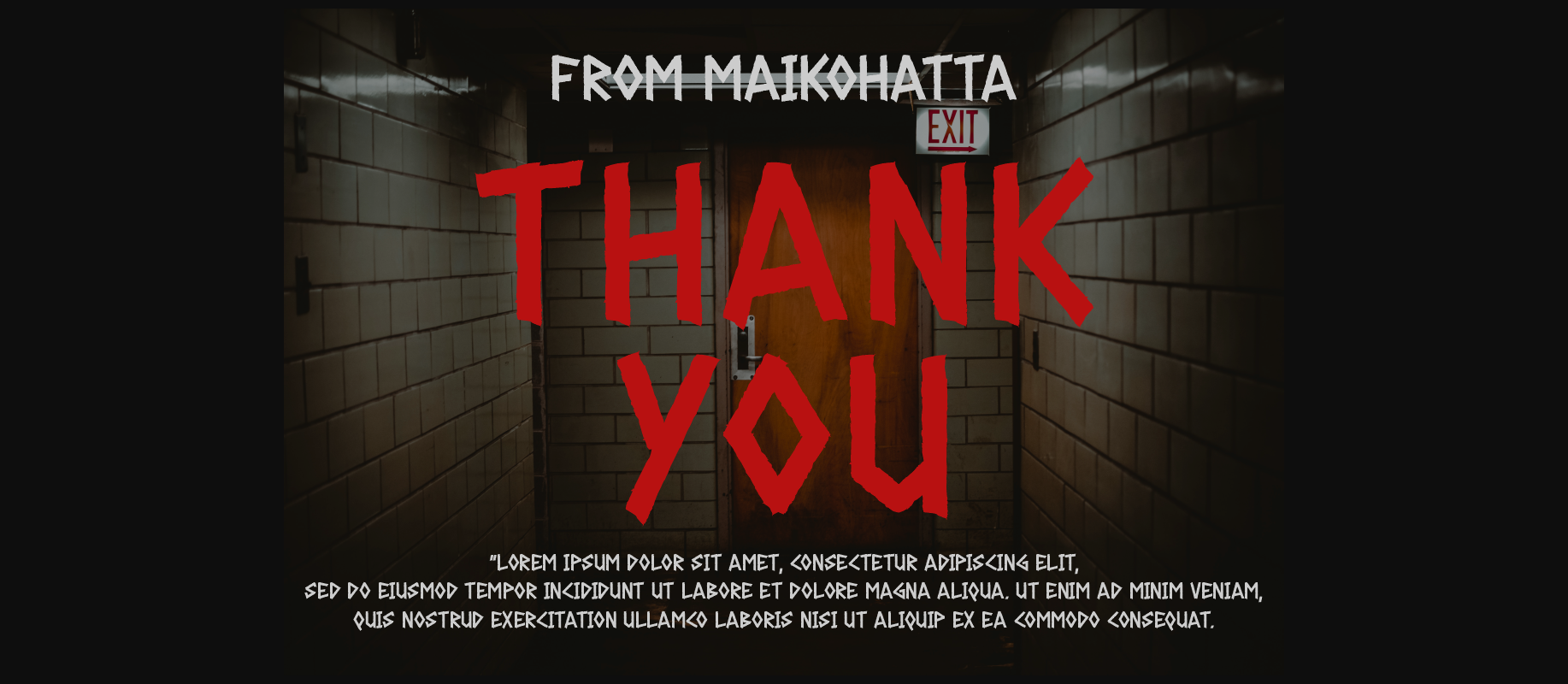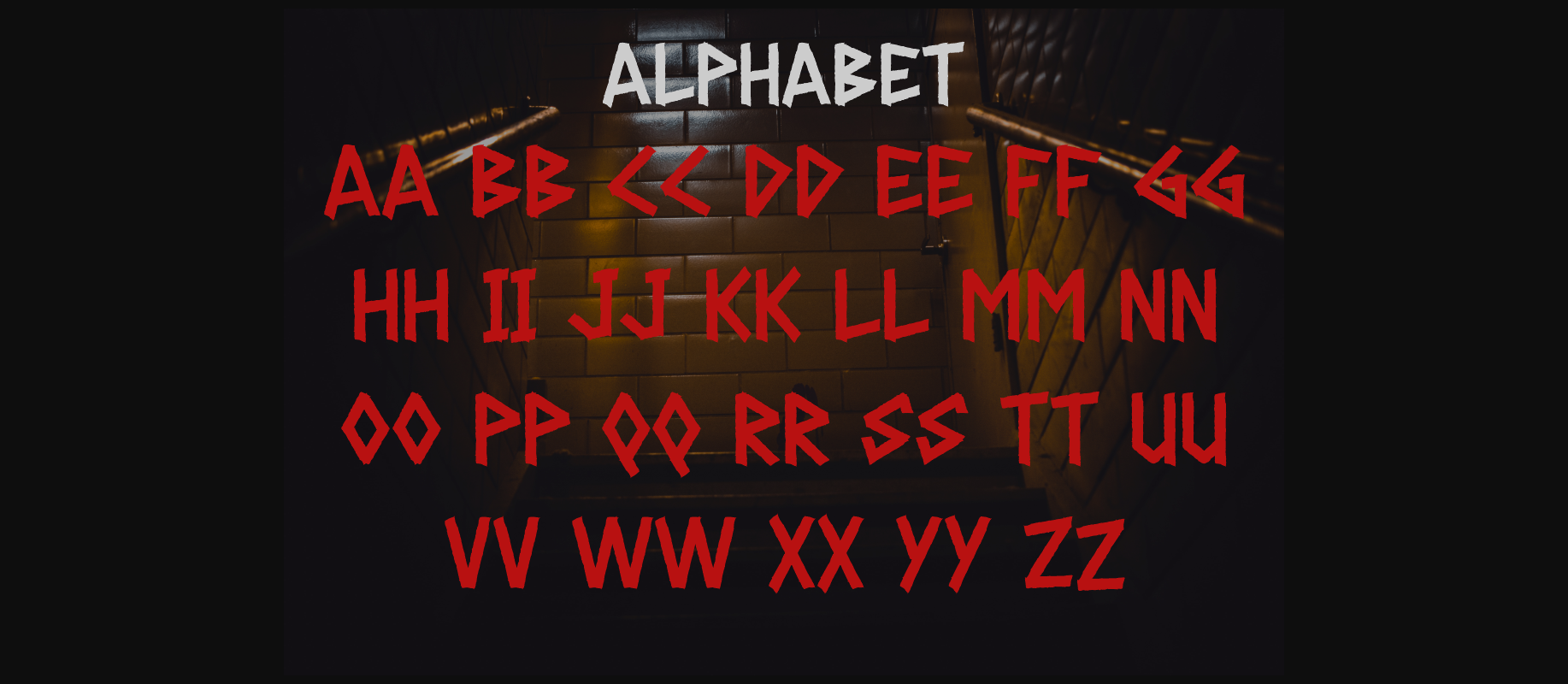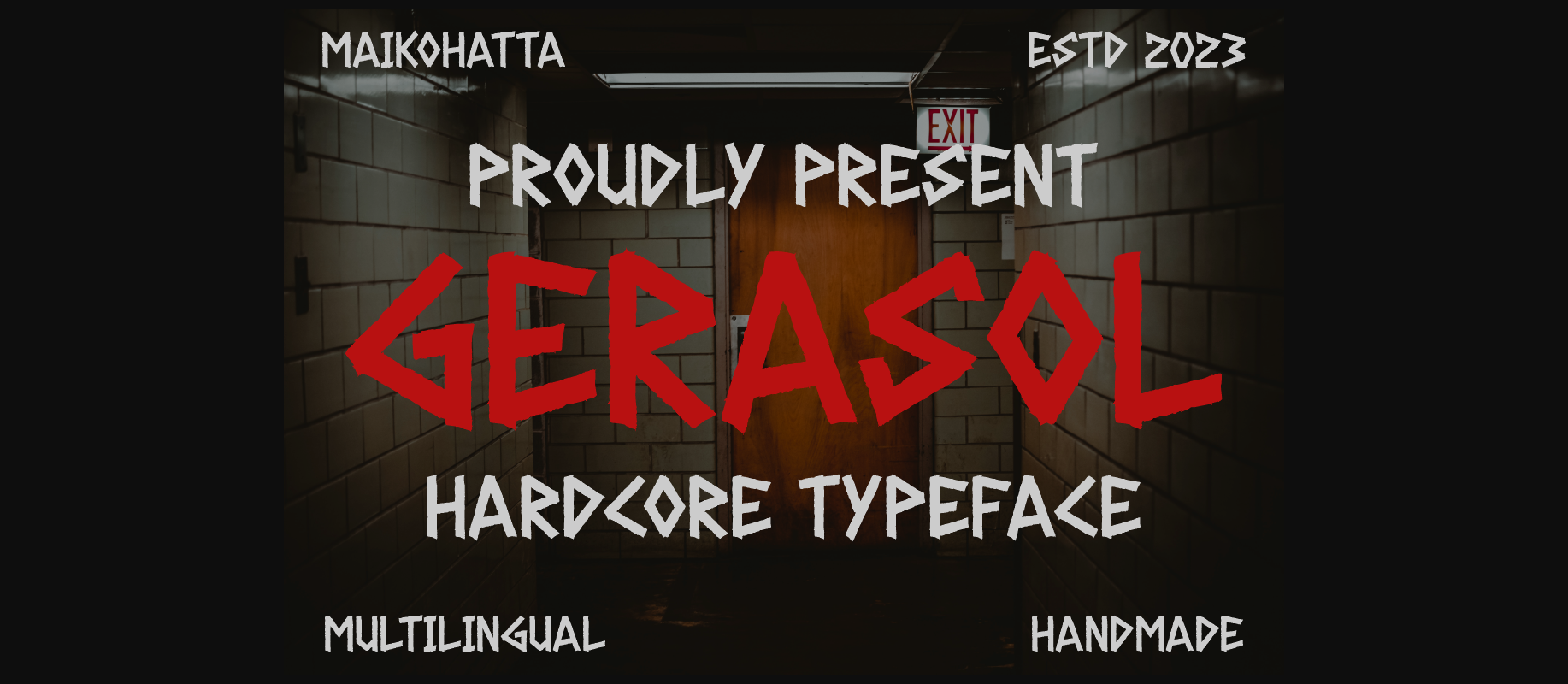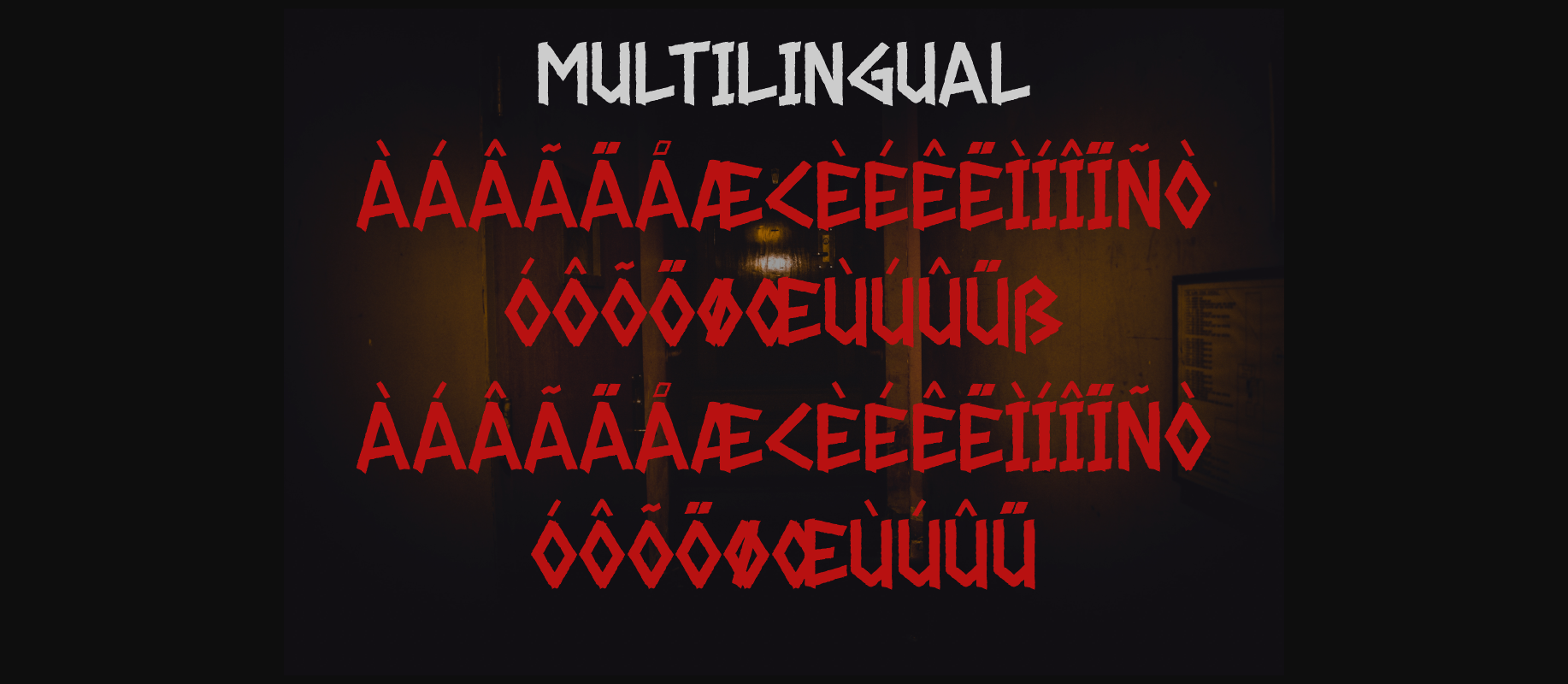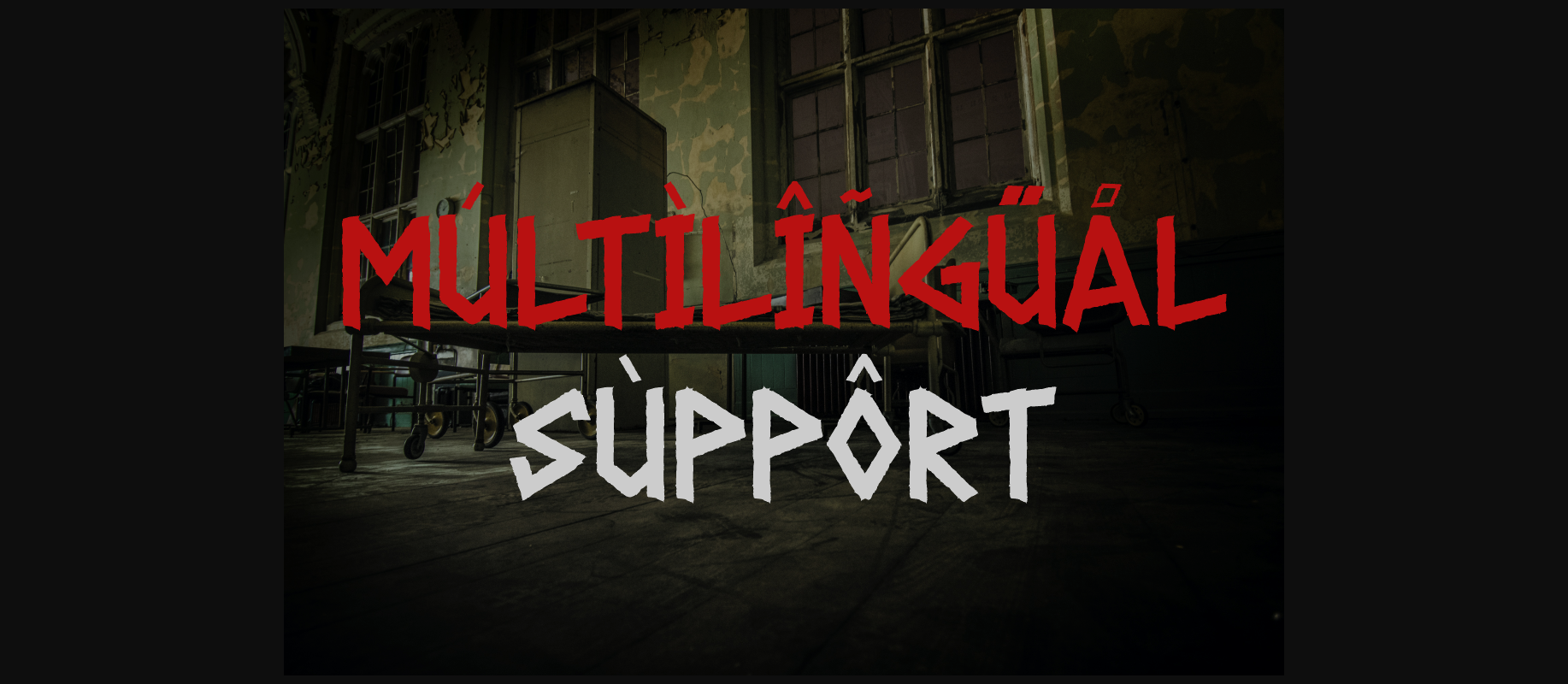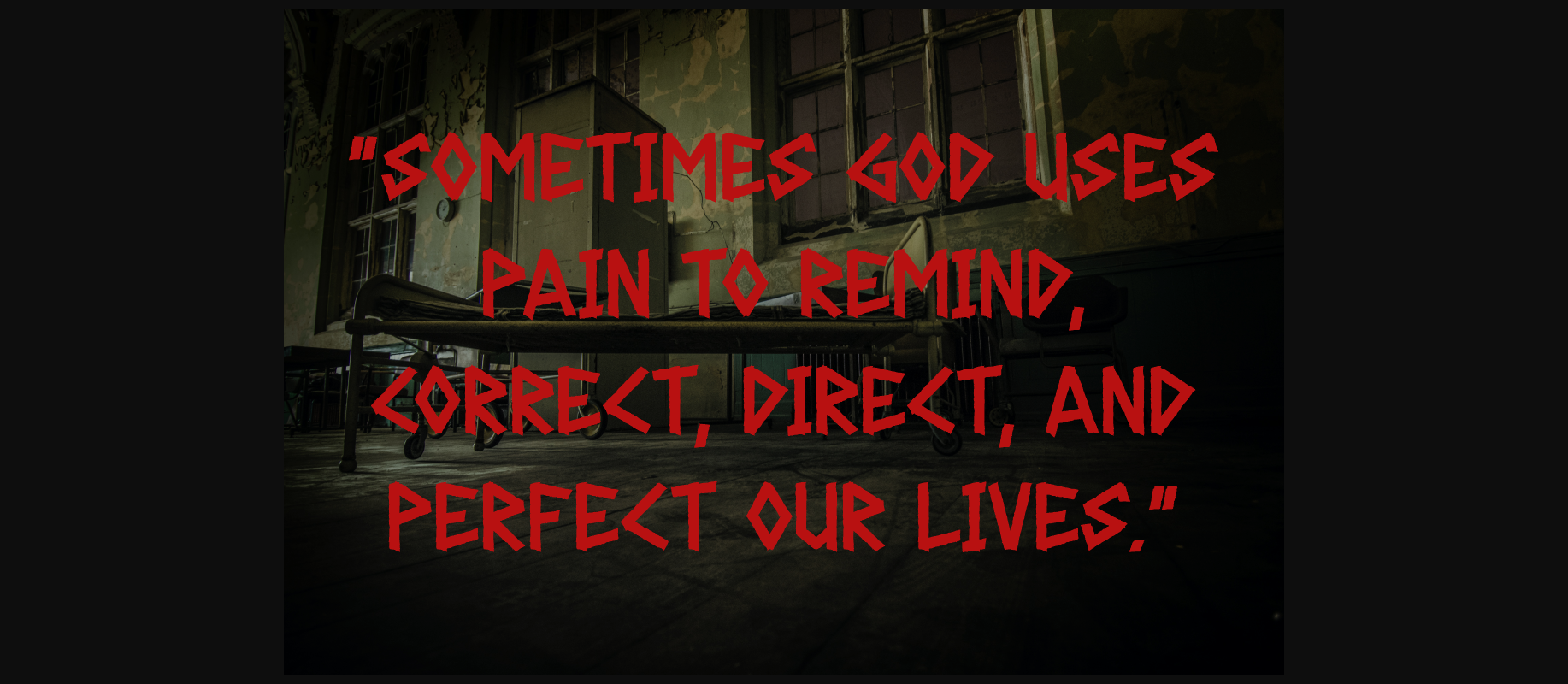
About Gerasol – Hardcore Font
**Gerasol** – Hardcore Font
**Gerasol** Modern hardcore font is a type of lettering that emphasizes strength, boldness, and an aggressive aesthetic in its design. Combining modern elements and influences from hardcore typography styles, this font showcases strong characteristics, sharp lines, and dynamic shapes.
* Uppercase
* Lowercase
* Multilingual